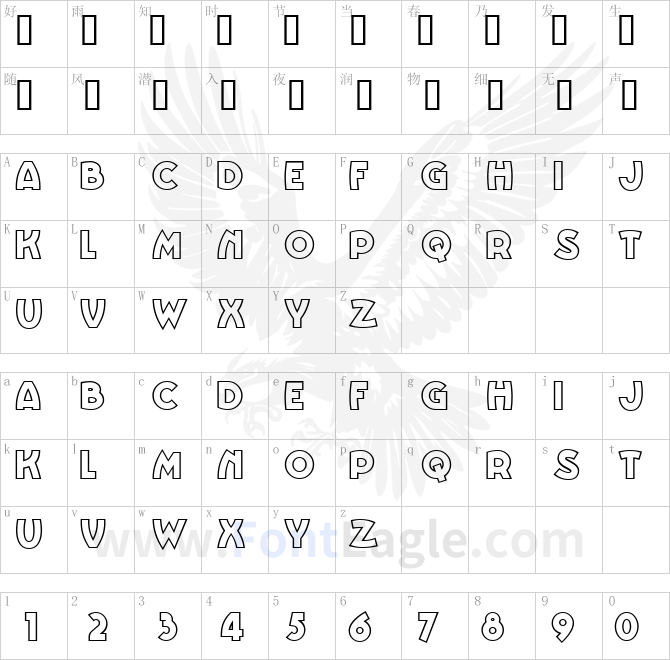
VinnieBoomBahNF is a great font, widely used in graphic design, single-page menu design, poster design and other fields, and is deeply loved by designers.VinnieBoomBahNF download.